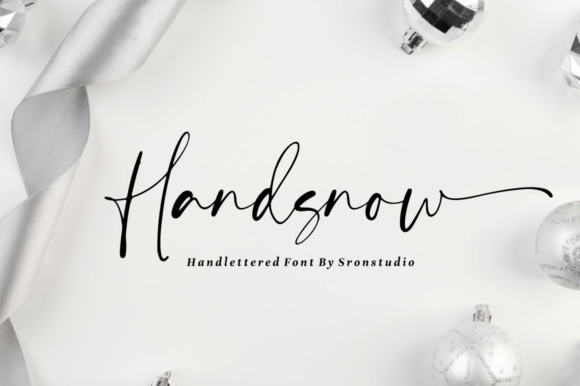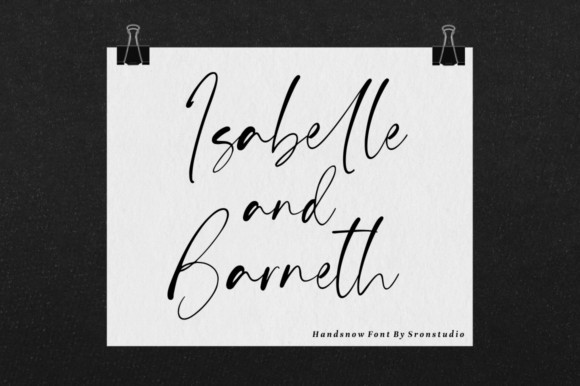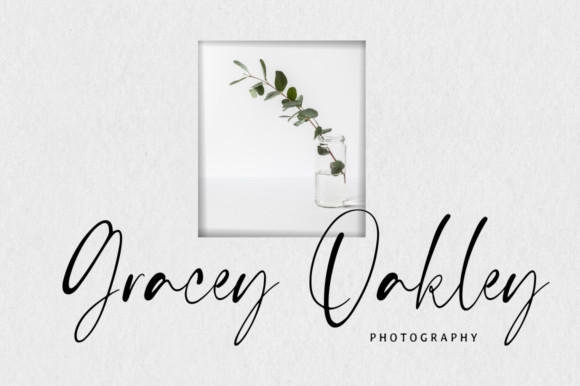
Handsnow Font
Handsnow is a dreamy and beautiful handwritten font. Relaxed and unique, this font has the potential to bring each of your creative ideas to the highest level!